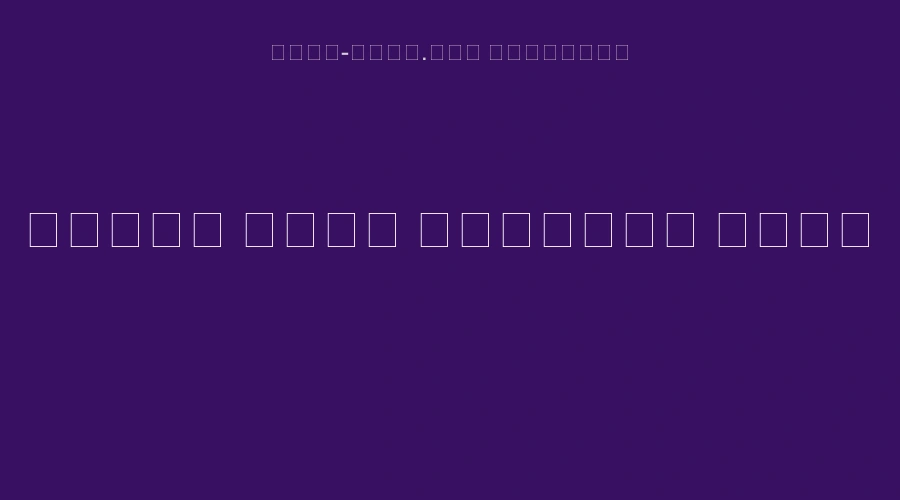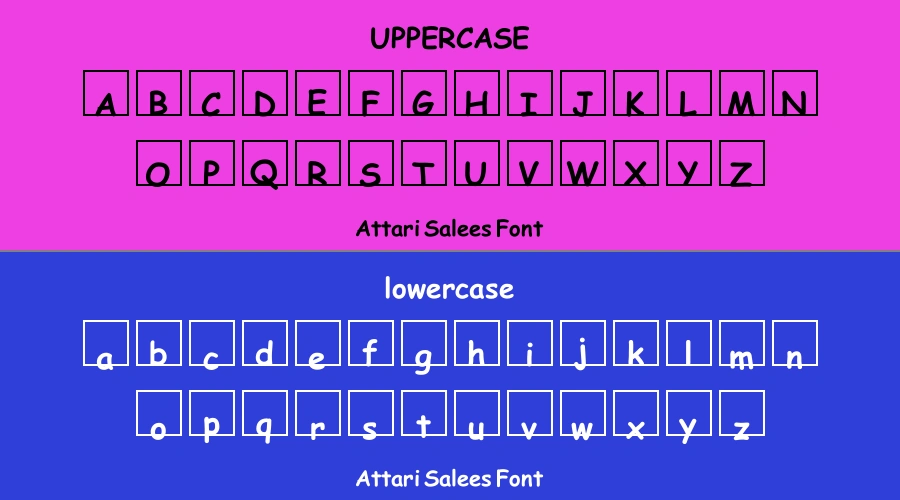
About Attari Salees Font
Attari Salees Font represents a sophisticated approach to type design, balancing measured spacing with optical harmony. Perfect for environmental graphics, this font family showcases impressive originality and system compatibility throughout its character set. Designers appreciate its versatility and reliability.
Designers will appreciate nuanced touches including rounded corners and decorative sets, adding sophistication to any project. These features become apparent in data tables, where format conversion matters most. The careful treatment of proportion and cultural context ensures optimal performance.